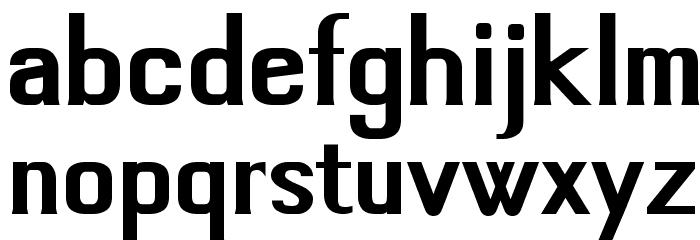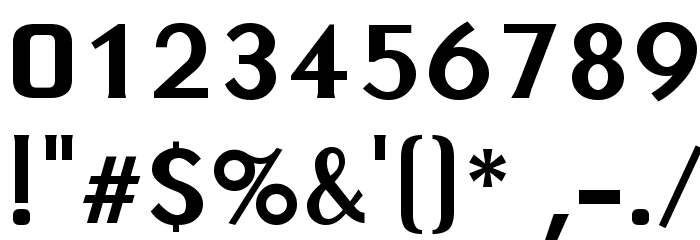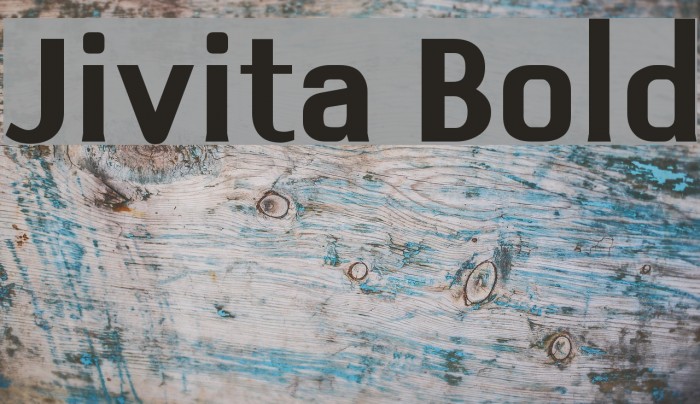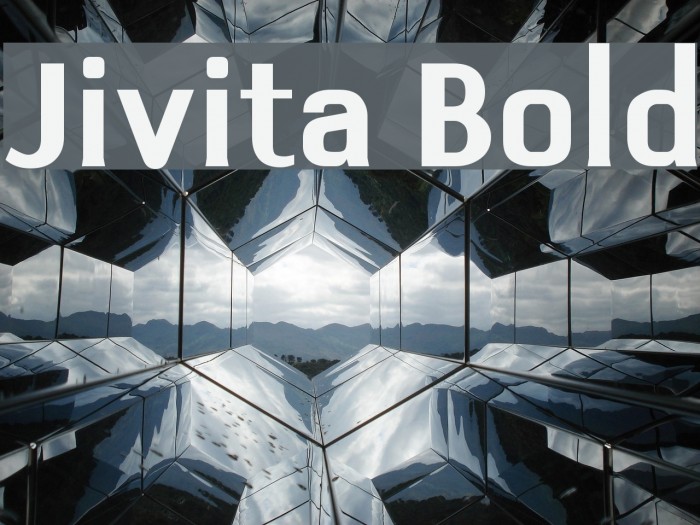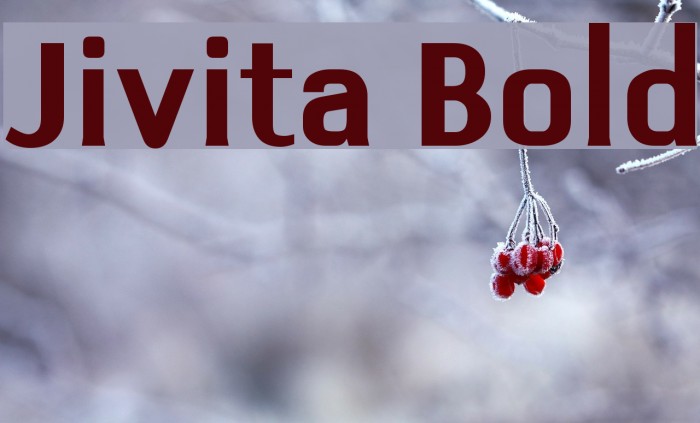
Jivita Bold Font
This font features a bold and modern sans-serif style with clean lines and a strong presence. The uppercase letters are uniform in height, providing a balanced and structured look. The lowercase letters maintain a consistent style with slightly rounded edges, adding a touch of softness to the overall design. The numerals are clear and easily distinguishable, making them suitable for various applications. Special characters are well-defined, enhancing the font's versatility. The overall appearance is sleek and contemporary, making it ideal for projects that require a bold statement.
A bold, modern sans-serif font with clean lines and a strong presence.
- Proposed Projects: Ideal for branding, headlines, posters, and digital media where a bold and modern look is desired.